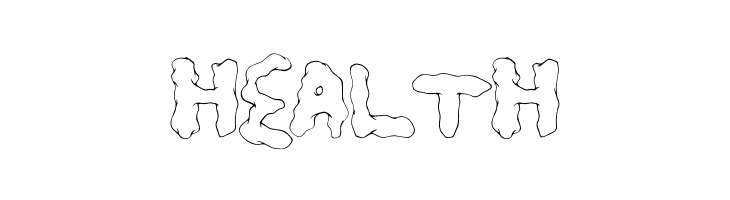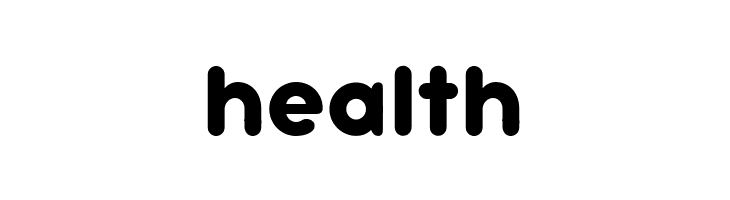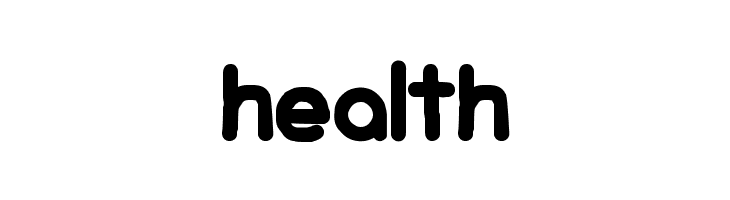
A bold, playful font with rounded, bubbly characters perfect for decorative use.
A bold, rounded, and playful font with a bubbly appearance.
A bold, playful font with rounded, bubbly characters.
A bold, playful font with rounded edges and a bubbly appearance.
A bold, playful font with rounded, bubbly characters and a retro-modern style.
A playful, bold font with bubbly, rounded characters perfect for fun and whimsical designs.
A bold, playful font with rounded, bubbly characters ideal for fun designs.
A playful, bubbly font with rounded, thick strokes and a whimsical touch.
A playful, bold font with a bubbly, whimsical style.
A playful, bold font with rounded edges and a bubbly appearance.
A bold, playful font with rounded edges and a bubbly appearance.
A playful, bold font with rounded edges and a bubbly appearance.
A playful, bold font with rounded, bubbly characters ideal for fun, informal projects.
A playful, bold, and rounded font with a whimsical, bubbly appearance.
A playful, bold font with a bubbly, rounded design and glossy effect.
A playful, bold font with rounded, bubbly characters perfect for creative projects.
A playful, bold typeface with rounded, bubbly characters ideal for fun and creative designs.
A playful, bold font with rounded, bubbly characters and a whimsical style.
A bold, playful font with rounded, bubbly characters ideal for fun and creative projects.
A bold, playful font with rounded, bubbly characters ideal for fun and cheerful designs.
A playful, rounded font with bold, thick strokes and a bubbly style.
A playful, bold font with rounded, bubbly characters and a friendly aesthetic.
A playful, bold font with rounded, bubbly characters perfect for fun and creative projects.
A playful, bold font with rounded, bubbly characters.
A playful, bold font with thick, rounded characters and a bubbly appearance.
A playful, bold typeface with rounded, bubbly characters.
A playful, bold font with rounded edges and a bubbly appearance.
A bold, bubbly, and playful font with a whimsical and lively appearance.
A playful, bubbly font with rounded, thick strokes and a whimsical touch.
A bold, playful font with a bubbly, rounded design and thick strokes.
A bold, playful font with rounded, bubbly characters.
A bold, playful font with rounded edges and a bubbly appearance.
A bold, playful font with rounded, bubbly shapes and a whimsical style.
A bold, playful font with rounded, bubbly characters.
A bold, playful font with rounded, bubbly characters ideal for fun and nostalgic designs.